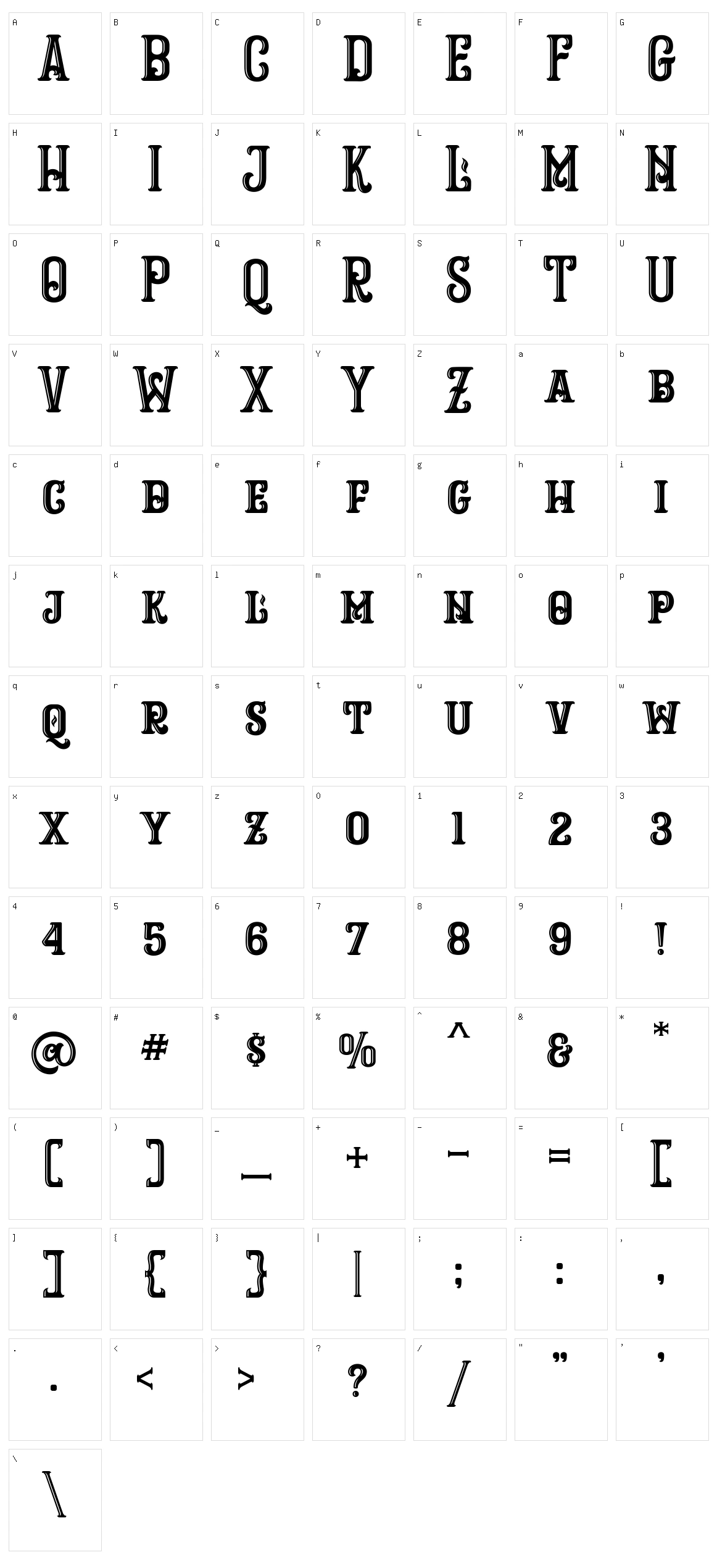
The free font Ropstone is carefully designed by Graptail Type Studio, showcasing a thoughtful balance of creativity and usability and falls under the Retro font style. When you download the ZIP file, it contains only 77.52 KB of font files, making it lightweight and quick to download. Please review the license details below to understand permitted usage and distribution rights. If license information is not available, we recommend using this font for personal projects only or contacting the author directly for commercial usage permissions.